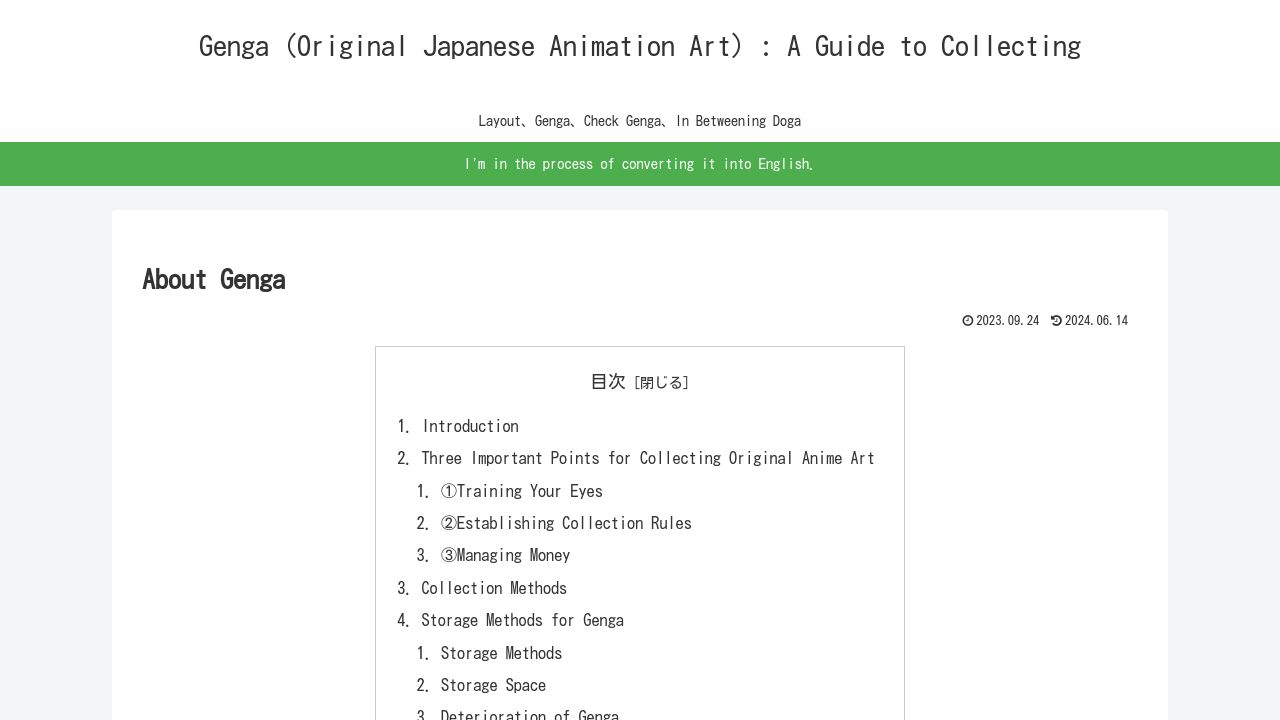
En.genga.net uses Kosugi as its main typeface. 3 fonts detected, last checked Sep 30, 2026.
Genga (en.genga.net) serves as a comprehensive guide for collectors of original Japanese animation art, utilizing distinct typography to reflect its unique niche. The primary fonts, including Kosugi and custom options like FontAwesome and IcoMoon, enhance the visual storytelling of the site, appealing to enthusiasts and collectors alike. These font choices not only provide clarity and accessibility but also resonate with the artistic nature of the content, fostering an engaging user experience.
The primary fonts on en.genga.net include Kosugi for text and custom fonts like FontAwesome and IcoMoon for icons and graphics.
Kosugi features a unique design that maintains legibility while being slightly more stylistic than other sans-serif options, making it suitable for creative content.
FontAwesome primarily offers a normal weight, providing consistent iconography across the site. Its simplicity enhances visual communication without distraction.